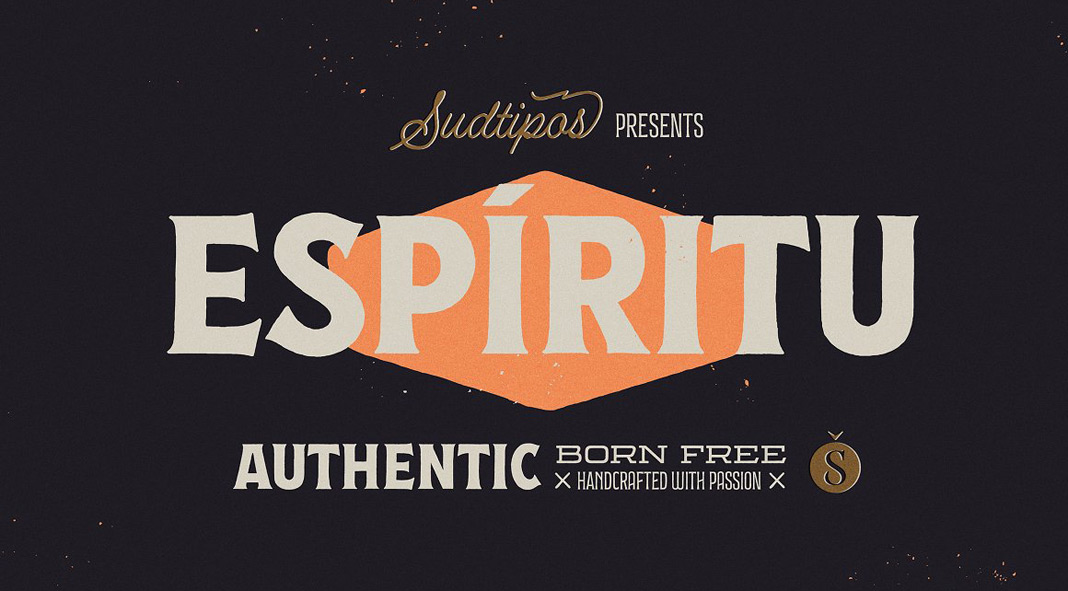
Espiritu, a handmade vintage-inspired font set that comes with plenty of suitable icons.
Here comes a hot new font set created in 2021 by Agustin Pizarro Maire and Guille Vizzari for foundry Sudtipos. As an illustrator, graphic designer, and letterer, Agustin Pizarro Maire’s goal was to create a font set entirely by hand. With the help of Guille Vizzari, Agustin Pizarro Maire created a peculiar font family that seeks a free spirit. The Espiritu font set consists of five styles that complement each other perfectly. In addition, a huge set of illustrations, icons, symbols, and badges is available in Espiritu Dingbats. For further information about all styles and features, just click on one of the following links.